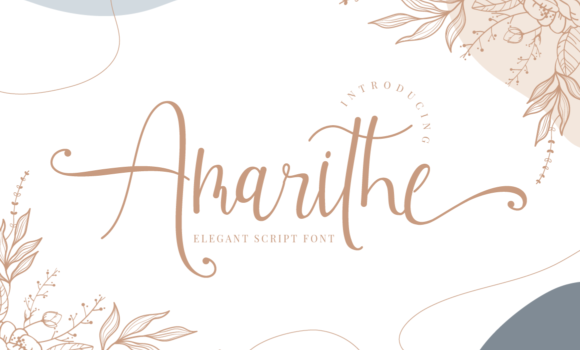
Amarithe Font – Free Download Introduction to Amarithe Font Amirithe is a beautiful and modern script font. 📸 Preview Gallery 6 images 📌 Product Name Amarithe Font 👤 Author putracetol 📂 Category Explore ⬇️ Download Amarithe Font FREE Free Download